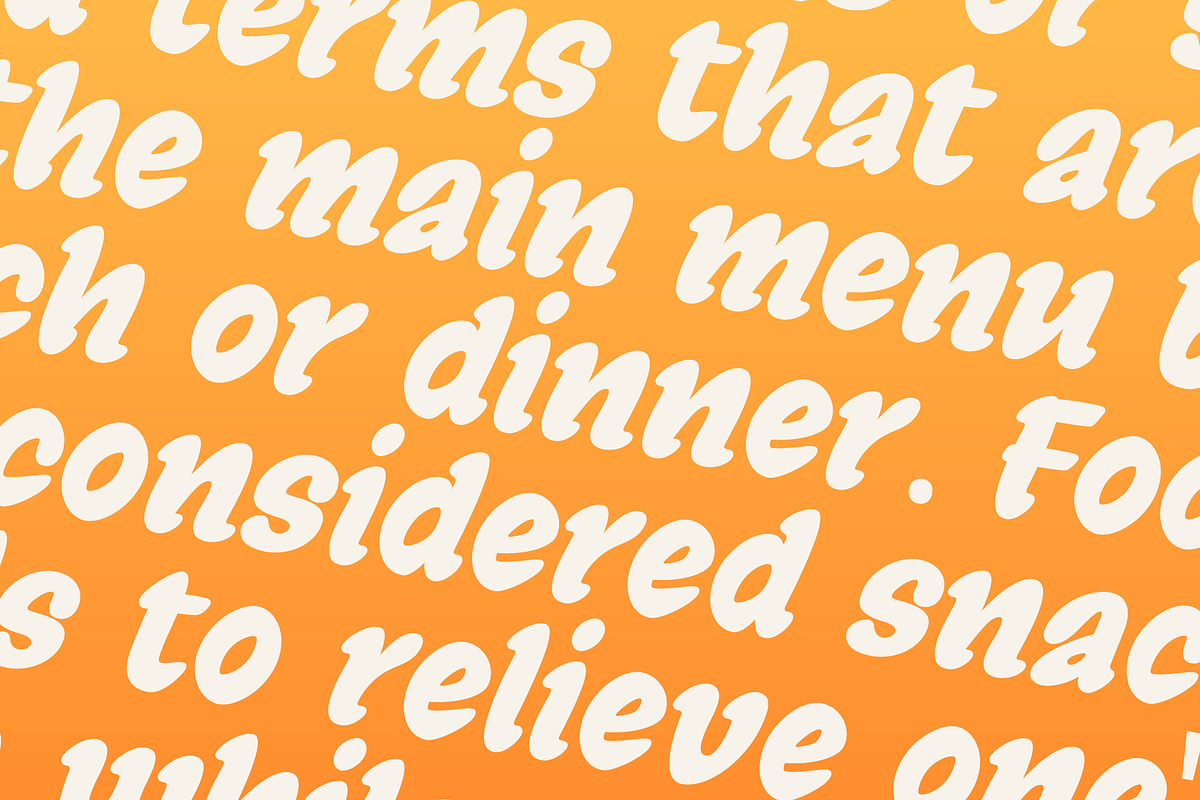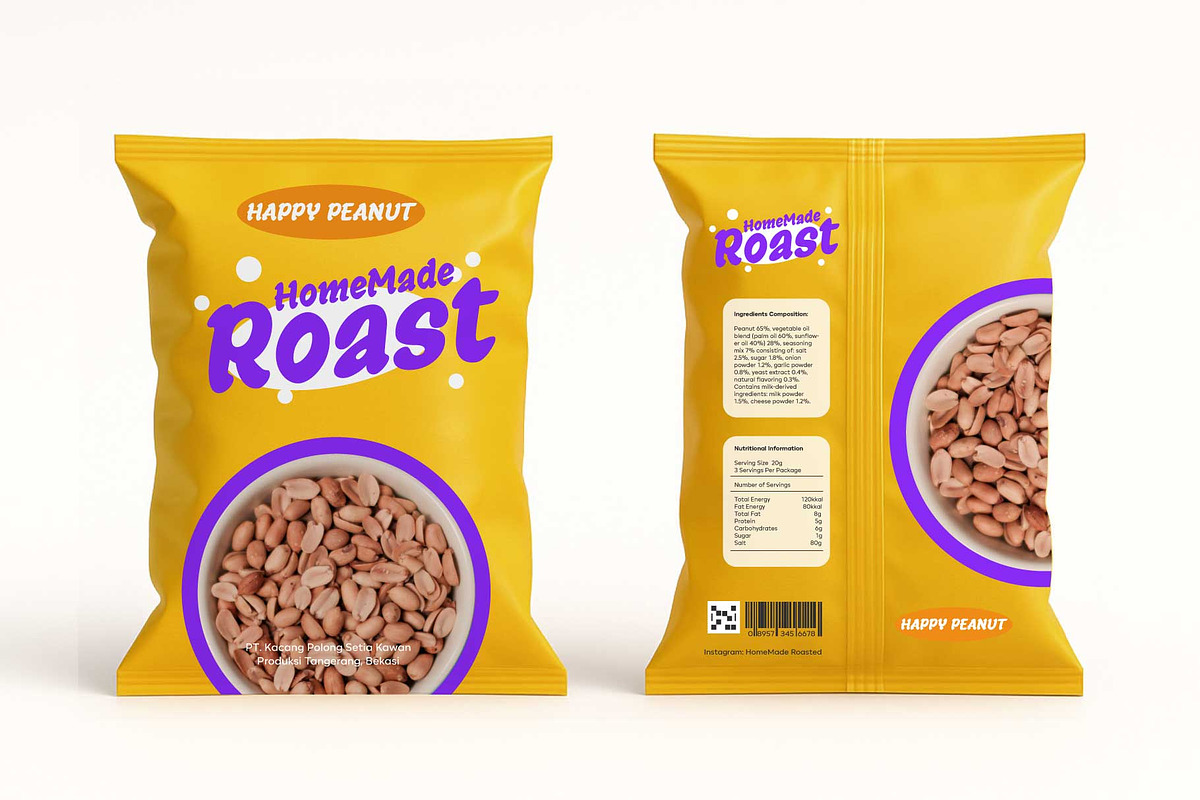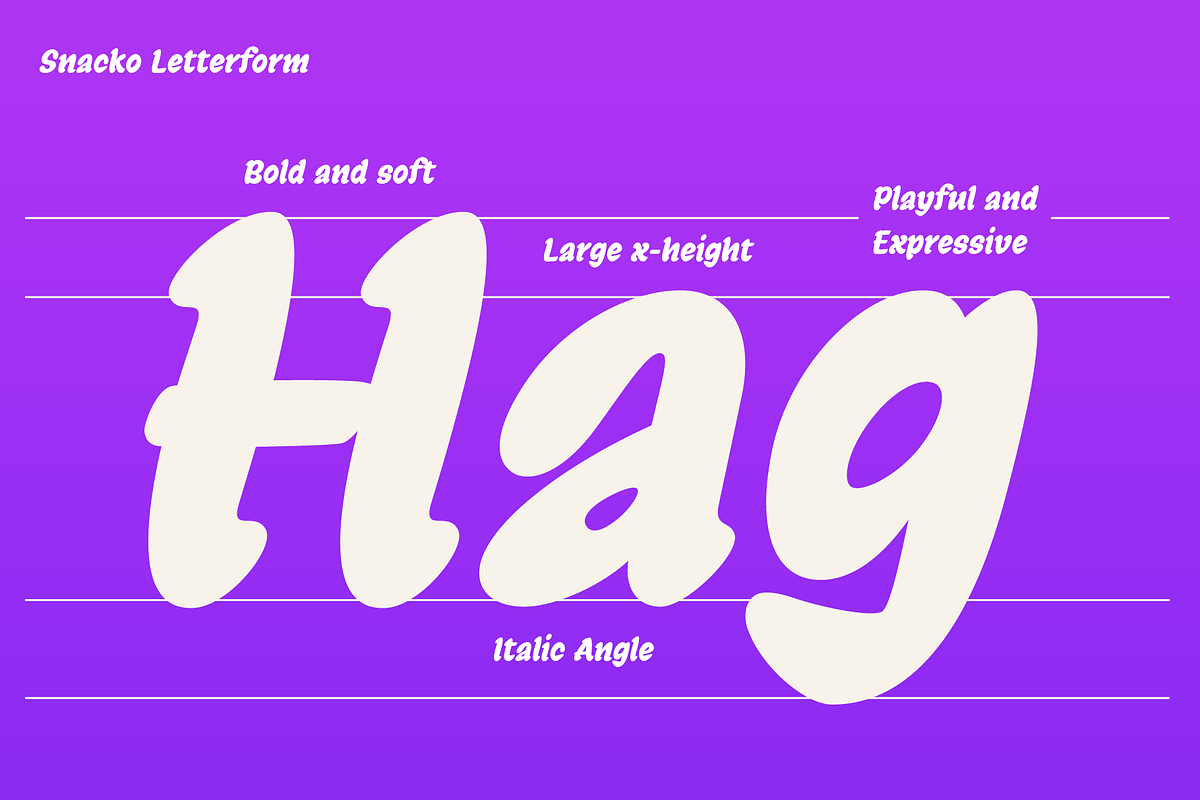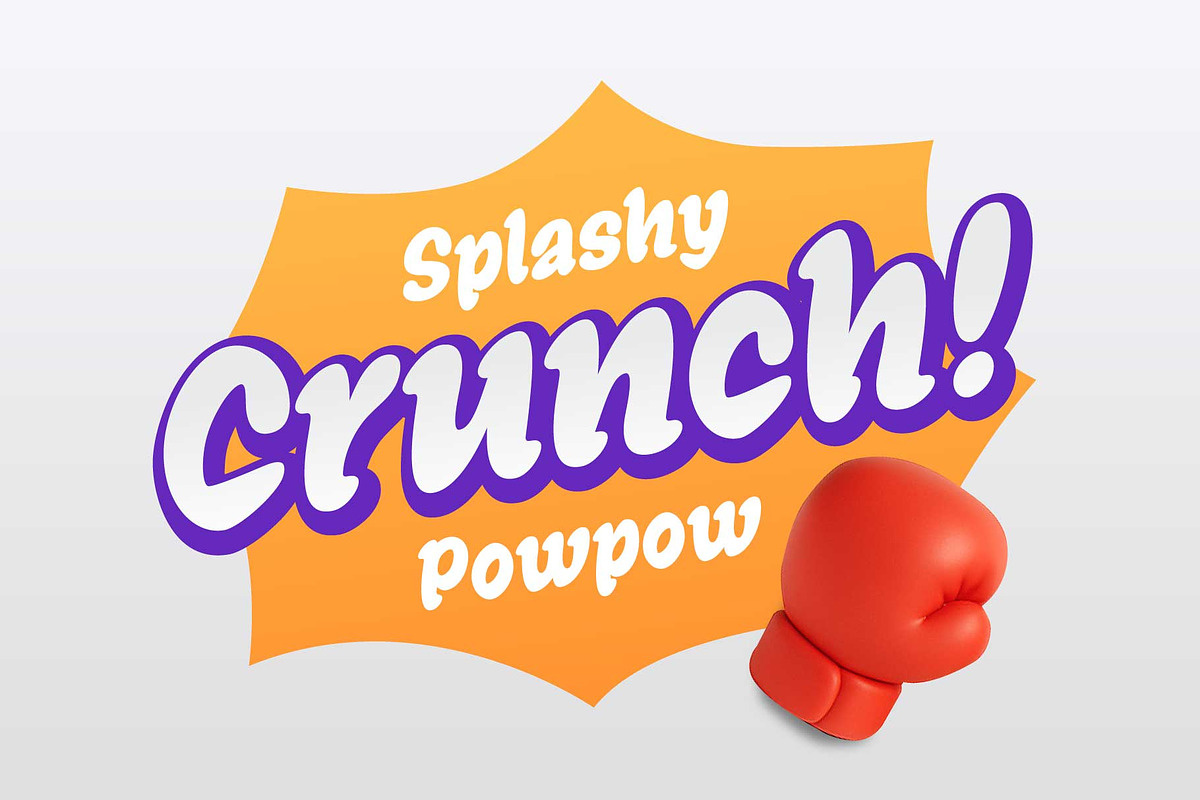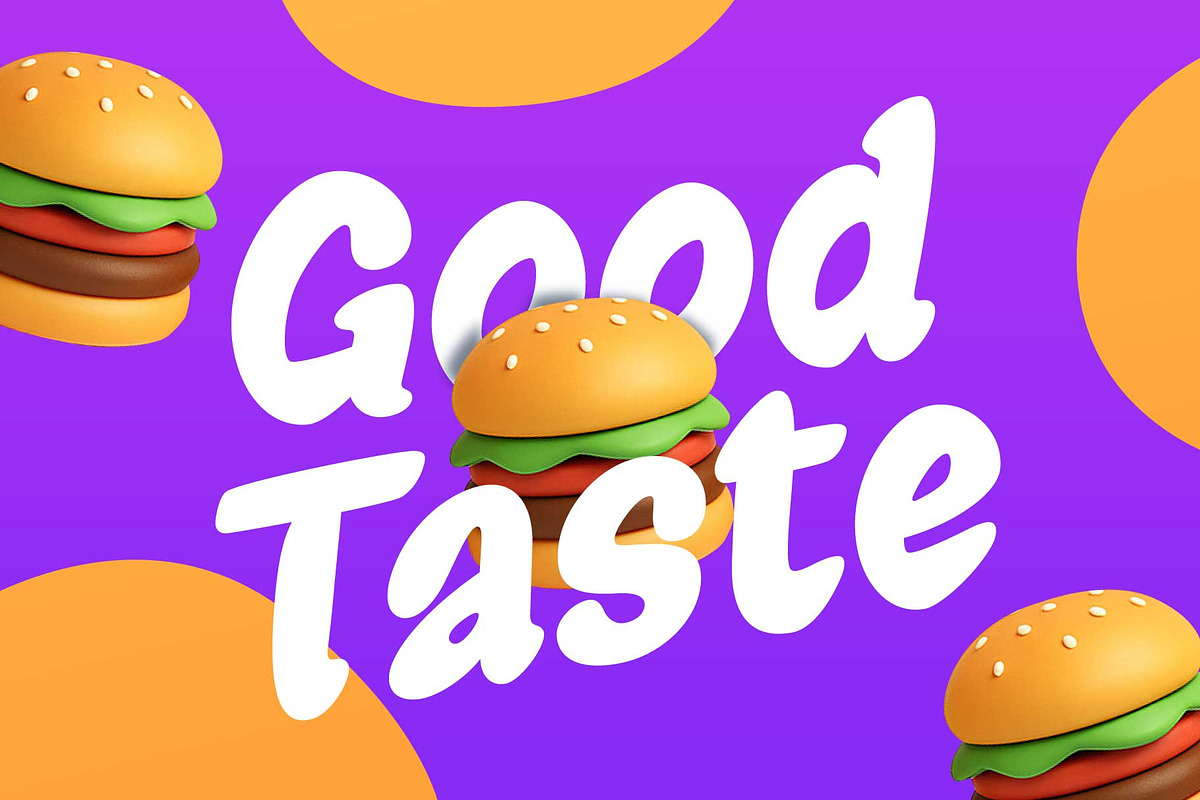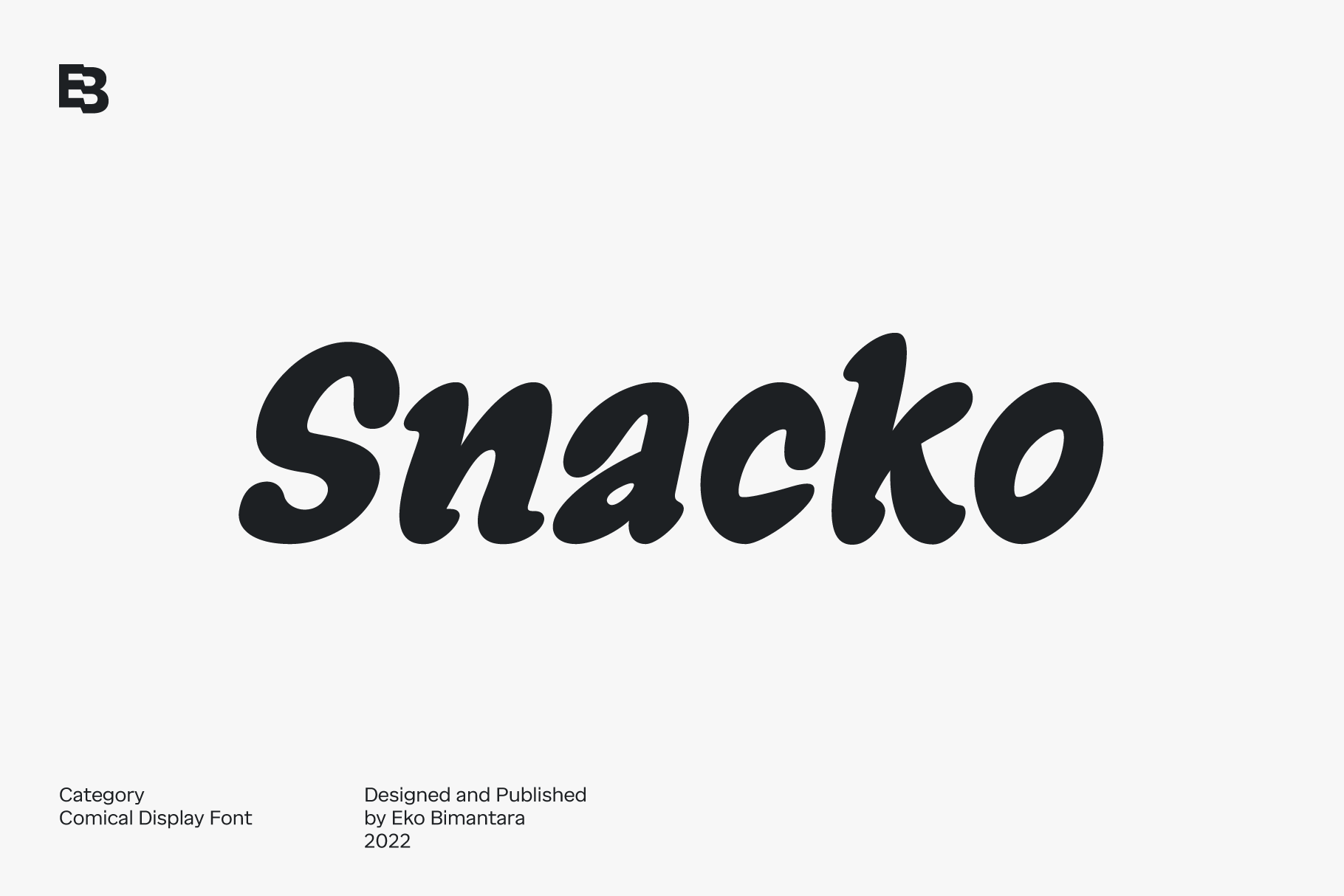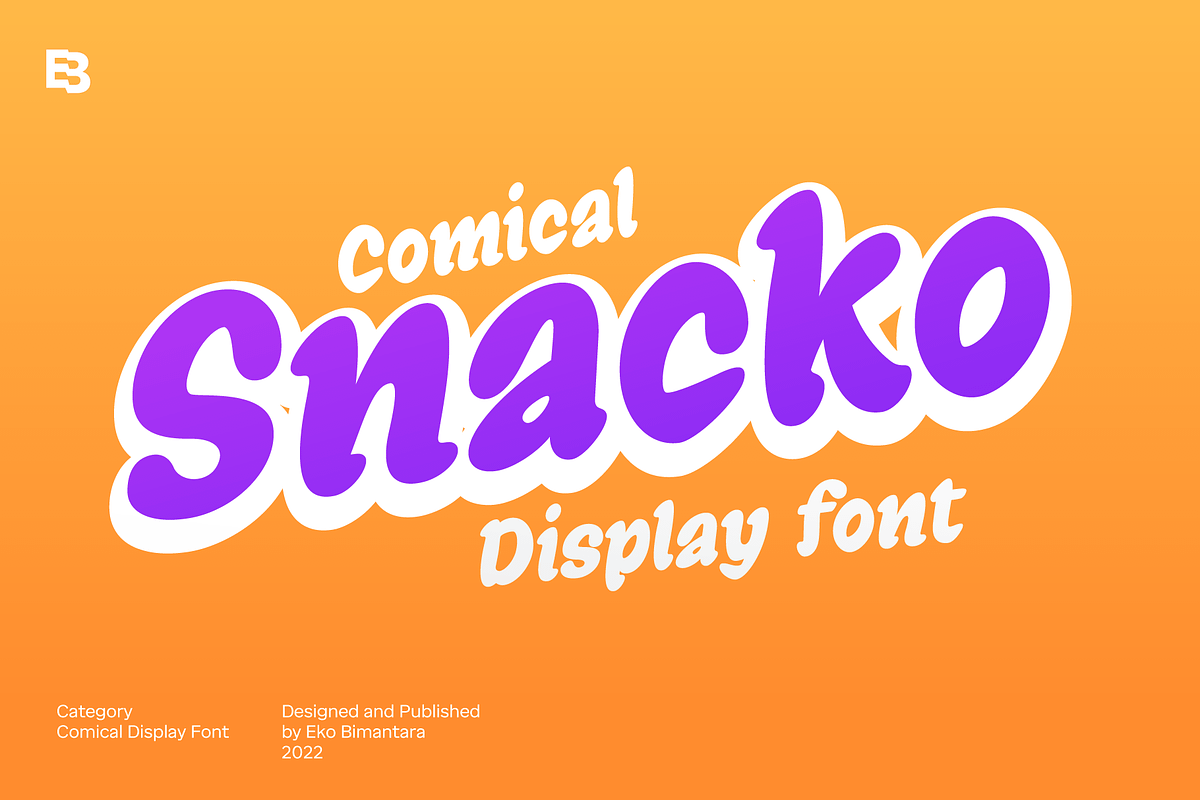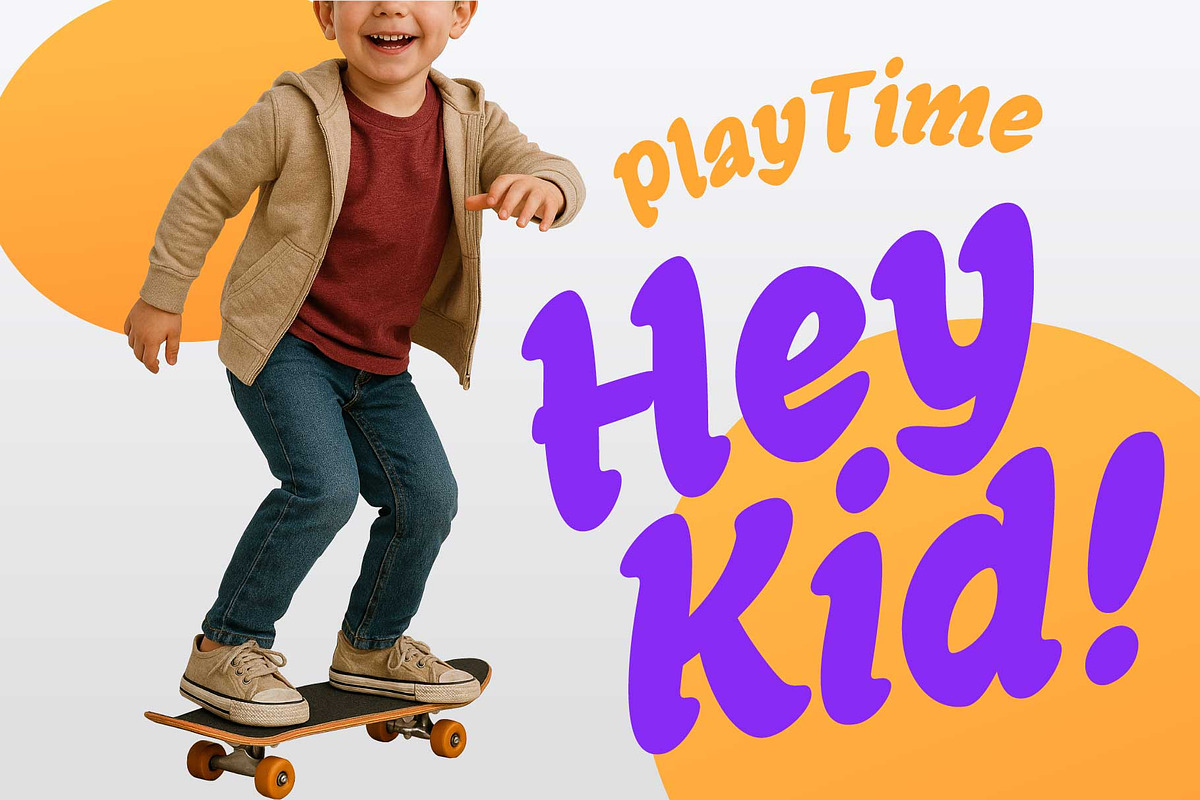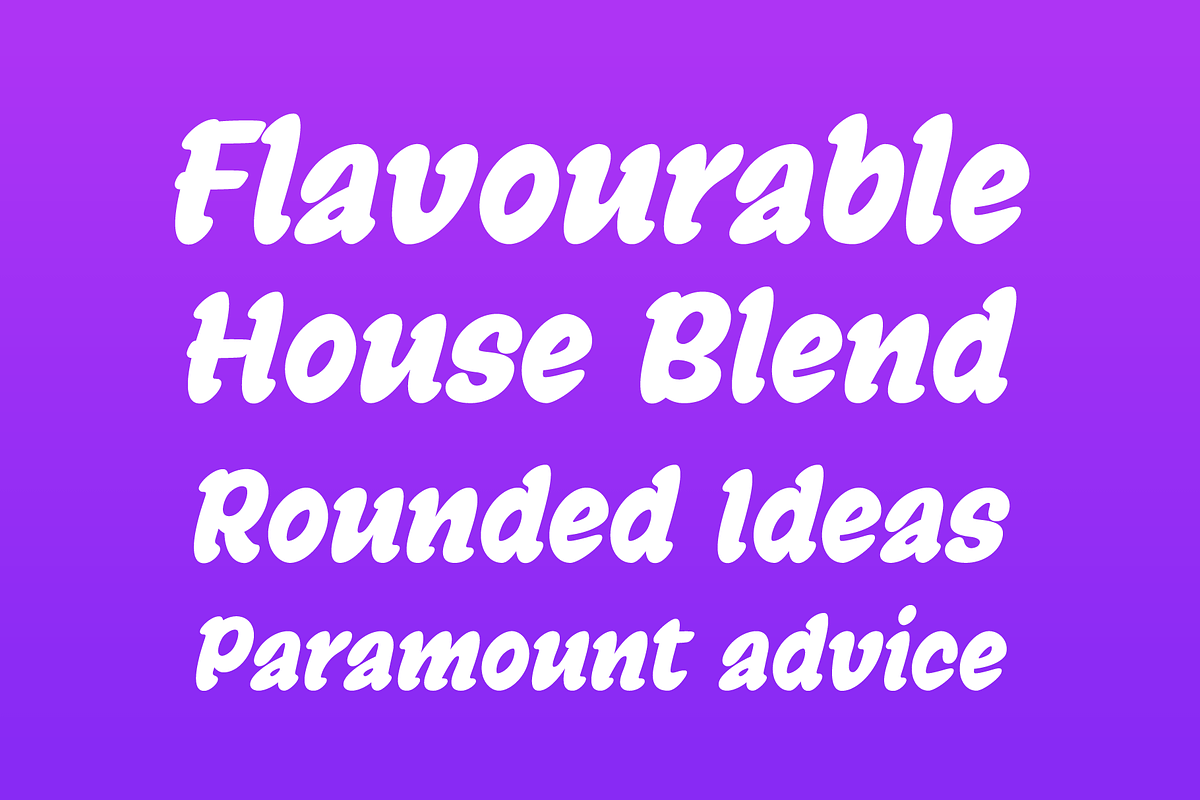
Snacko; Comical Display Font
Snacko is one dope display font. It’s got that casual vibe mixed with some 70s soft serif styles, and a playful italic angle that’ll make your designs move and groove! This font is perfect for titling, branding, logos, and all kinds of digital or printed materials. It’s fun and playful, so it’s perfect for designs that are targeted at a younger crowd or need a fresh and modern feel.
Snacko’s funky, soft, and cool design makes it the bomb for all kinds of design fields, from advertising to packaging to social media graphics. It’s got a style that’s all its own and can make your designs pop and stand out from the crowd. This font only comes in one style, but don’t trip, it’s versatile and can be used in all kinds of ways. It’s approachable and friendly with a softness that’s off the hook, but also funky and expressive with a unique personality that can take your designs to the next level.
Bottom line, Snacko is one creative and versatile font that’ll bring a playful and fun energy to all your designs. It’s got a unique style that’s perfect for any designer’s font collection, so don’t sleep on this one!